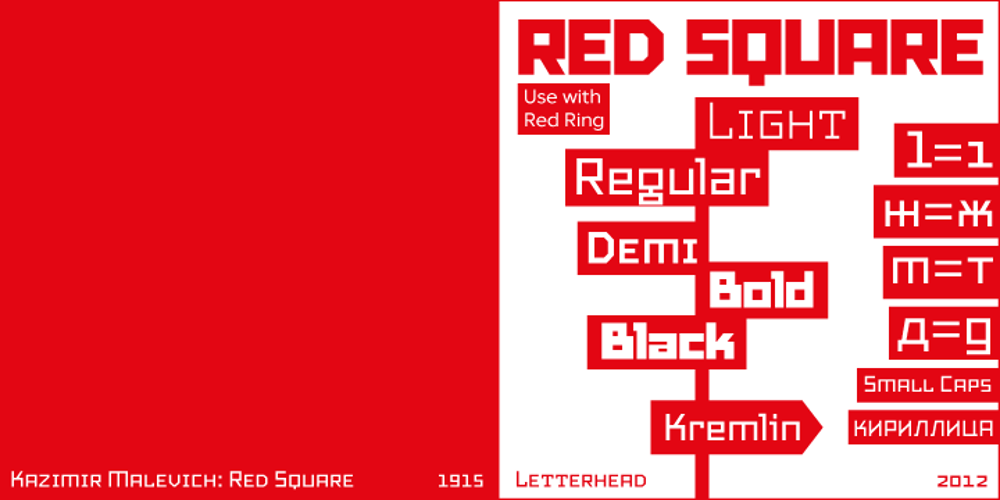
Red Square Font Family was designed by Yuri Gordon and published by Letterhead Studio-YG. Red Square contains 5 styles and family package options. Red Ring and Red Square – the super-family of two families of fonts. The super-family includes sanserif Red Ring and geometric font Red Square. Families are synchronized by the number and weight of the typefaces and can be used either separately or together. Together Ring and Square produce a cumulative effect of Art Deco and Constructivism.